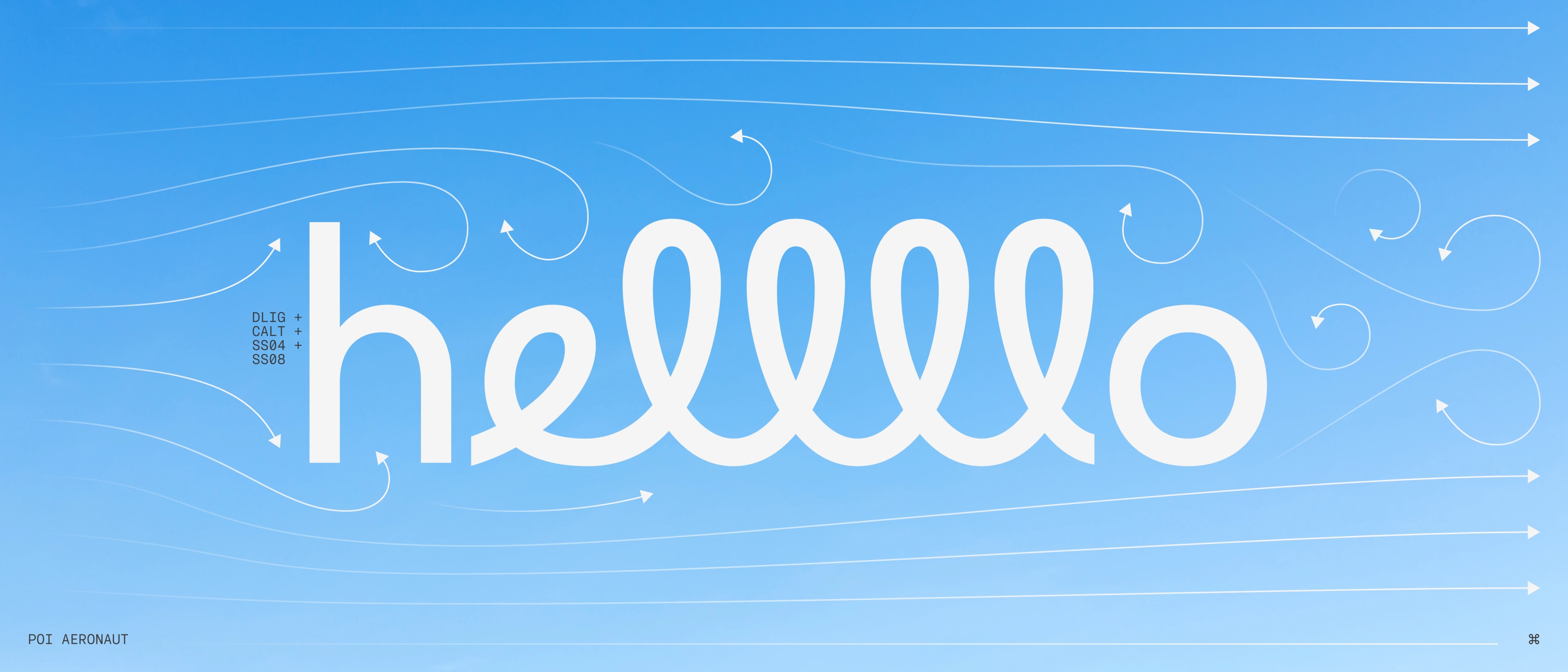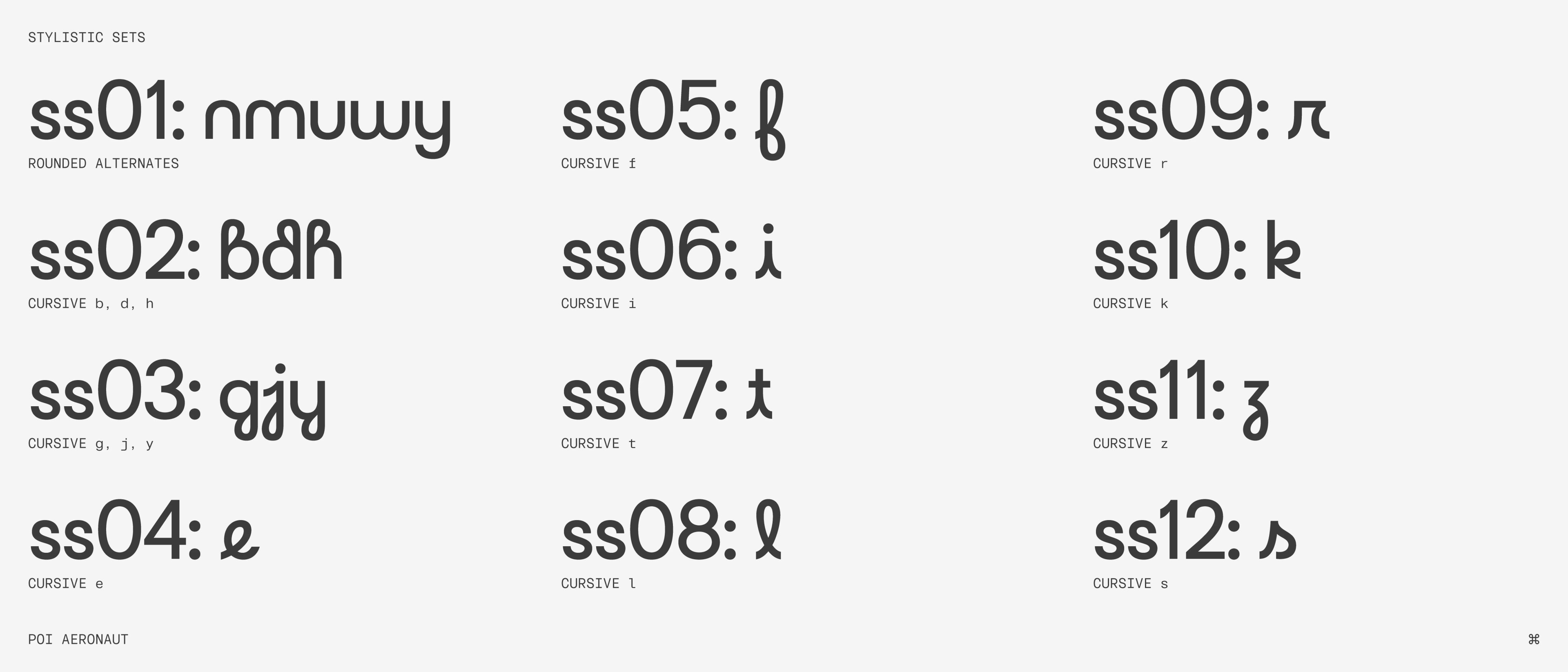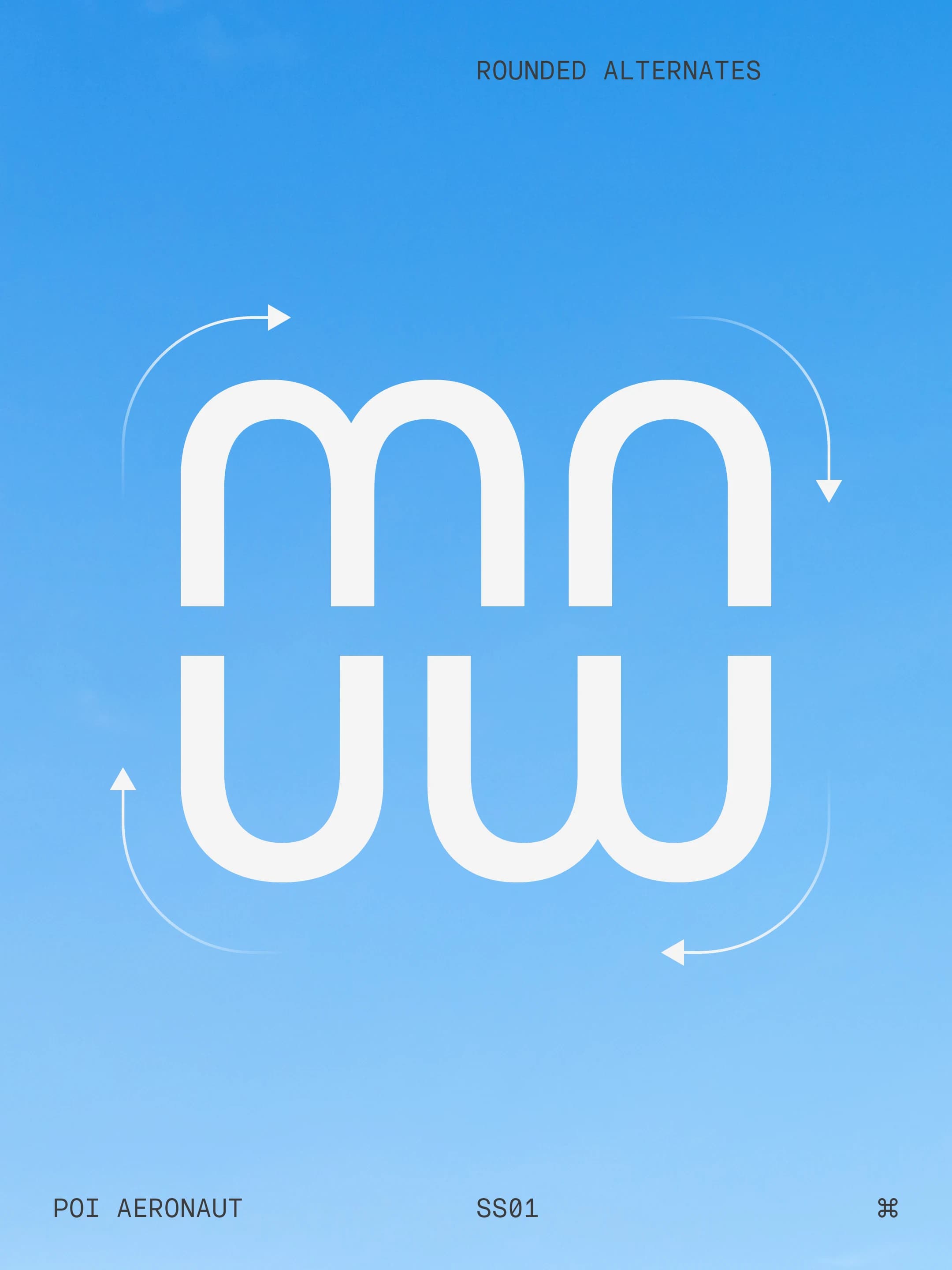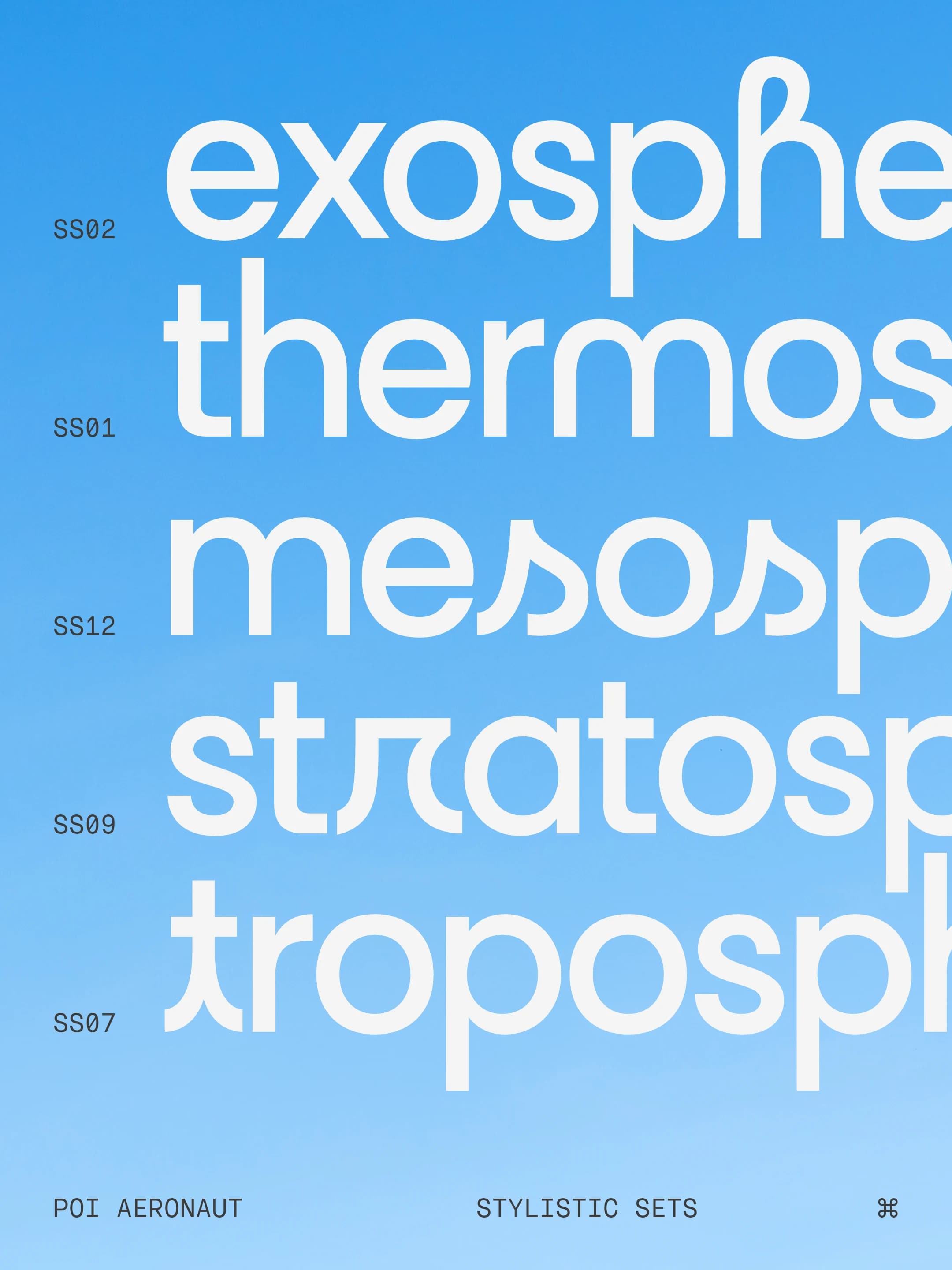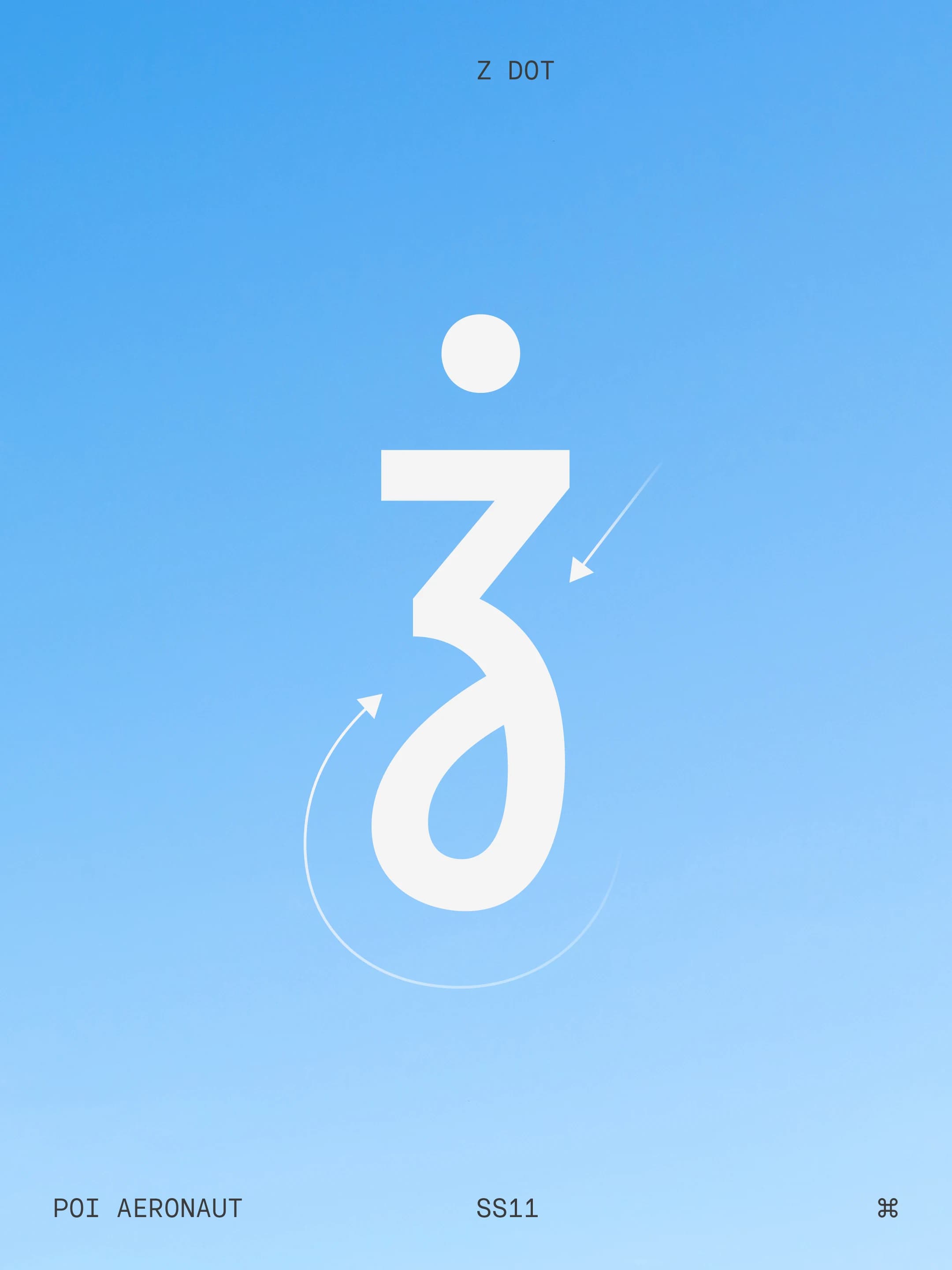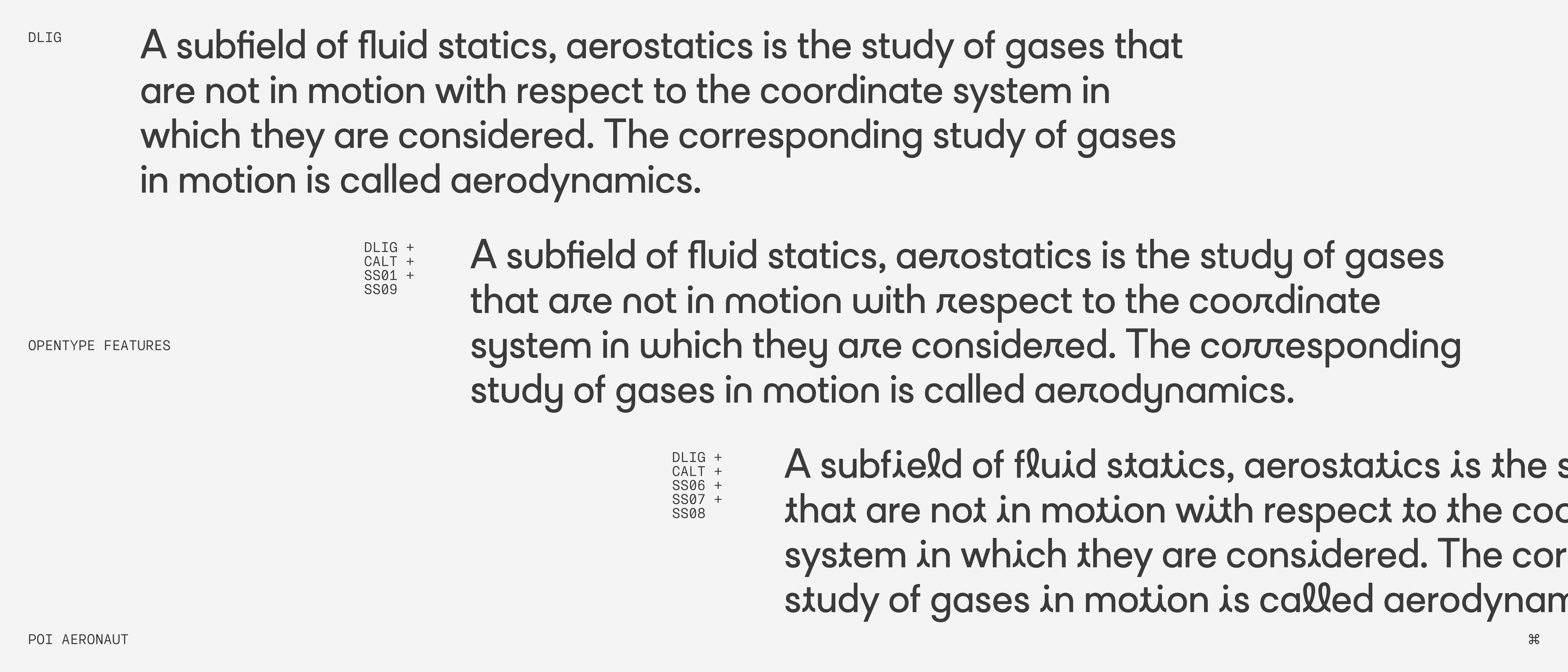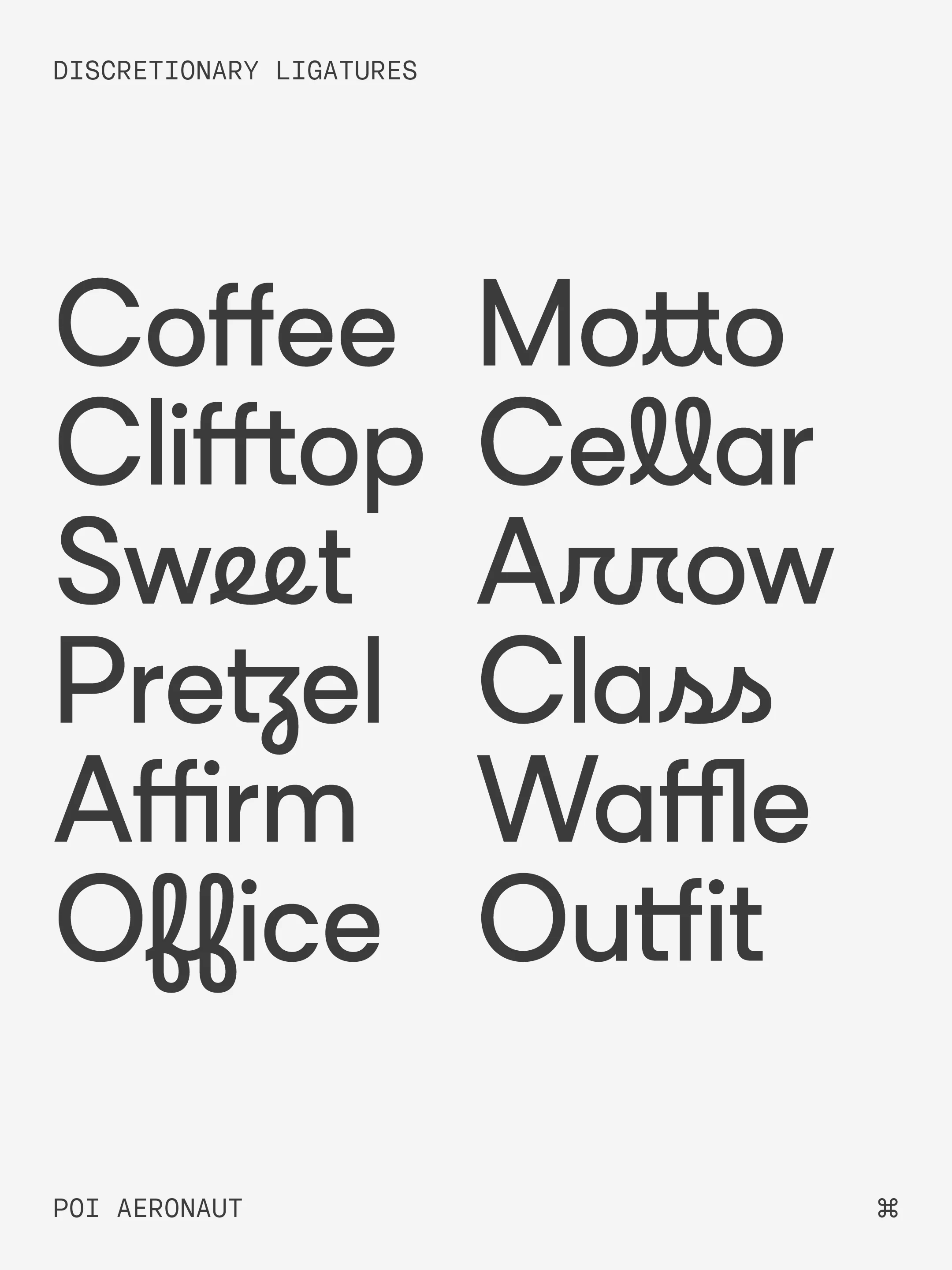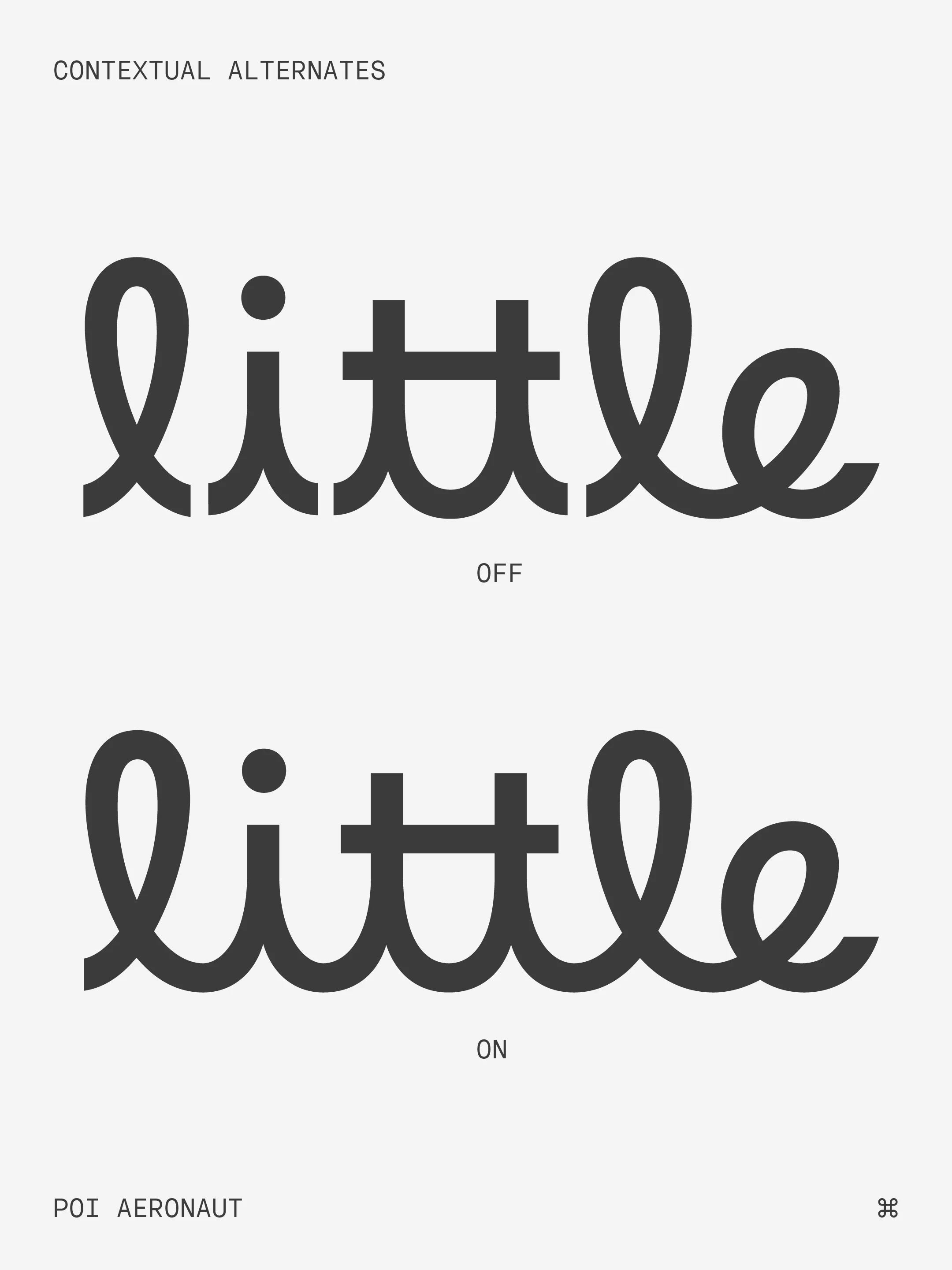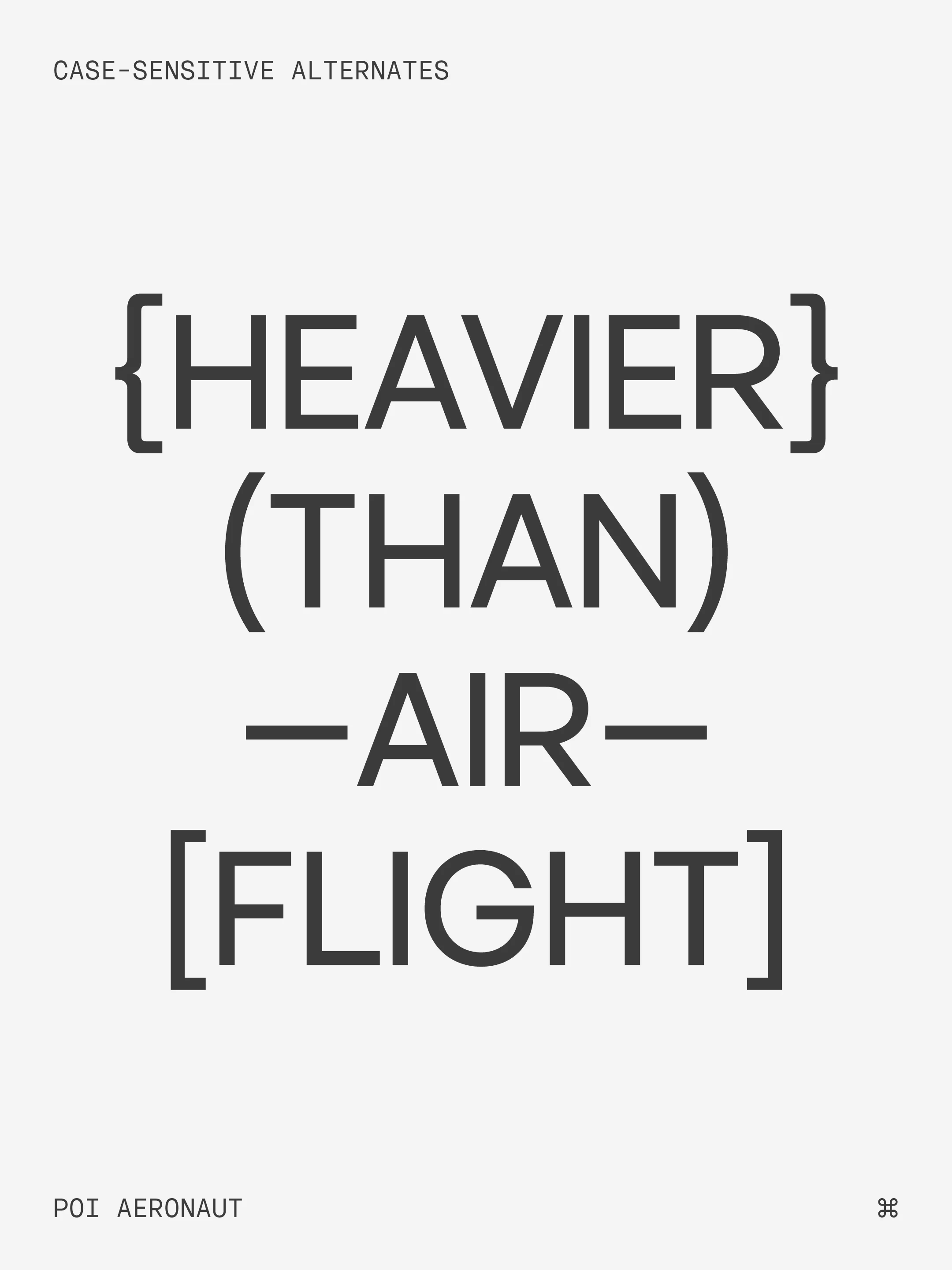
Aeronaut
This geometric sans, inspired by cursive practice sheets, brings warmth and whimsy to a genre that historically lacks it. Arrows, originally intended to guide the student's hand, draw parallels to aerodynamics, the typeface's namesake. Best suited for expressive messaging, Aeronaut includes 12 stylistic sets, giving you full creative control.
Aeronaut features